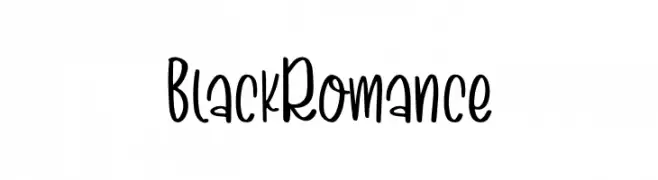
A decorative, heart-themed font with romantic symbols and phrases.
A bold, geometric font with a modern and decorative style.
A bold, flowing script font with dynamic, connected characters.
A whimsical, handwritten font with elongated, irregular letterforms.
A bold, geometric font with a modern, industrial aesthetic.
A modern, geometric font with uniform line thickness and rounded edges.
A classic, distressed font with medium contrast and a hand-crafted feel.
A whimsical, heart-adorned font with tall, slender characters and a modern flair.
A decorative font with uppercase letters in heart shapes and classic serif numbers.
A playful, hand-drawn collection of romantic speech bubbles and doodles.
A modern, geometric font with clean lines and a minimalist aesthetic.
A bold, heart-themed decorative font with a playful and romantic style.
A whimsical font with heart motifs and flowing lines, perfect for romantic themes.
A bold, heart-themed font with a playful and romantic style.
A playful, heart-themed font with bold, italicized strokes.
A whimsical, heart-themed font with smooth, flowing strokes and medium weight.
Ornate, decorative uppercase font with intricate designs.
An elegant, decorative font with ornate swashes and vintage charm.
A whimsical, romantic script font with decorative heart accents.
A classic serif typeface with elegant, balanced letterforms and moderate contrast.
A modern take on historical script with bold, angular strokes and artistic flair.
The image contains decorative illustrations instead of a standard font.
A bold, geometric font with a modern, futuristic style.
A decorative font with characters inside heart shapes adorned with roses.
A romantic script font with heart motifs and flowing cursive style.
A romantic script font with heart motifs and a whimsical, flowing style.
A decorative serif font with rose embellishments, offering a vintage and romantic style.
A playful and whimsical font with decorative elements and a romantic touch.
A classic serif font with strong, authoritative strokes and pronounced serifs.
A clean, modern typeface with balanced spacing and high readability.
A classic serif font with elegant serifs and balanced proportions, ideal for formal and academic use.
A classic serif font with a slanted, elegant style and moderate contrast.
A classic serif font with elegant strokes and refined proportions.
An elegant script font with flowing, cursive strokes and decorative flourishes.